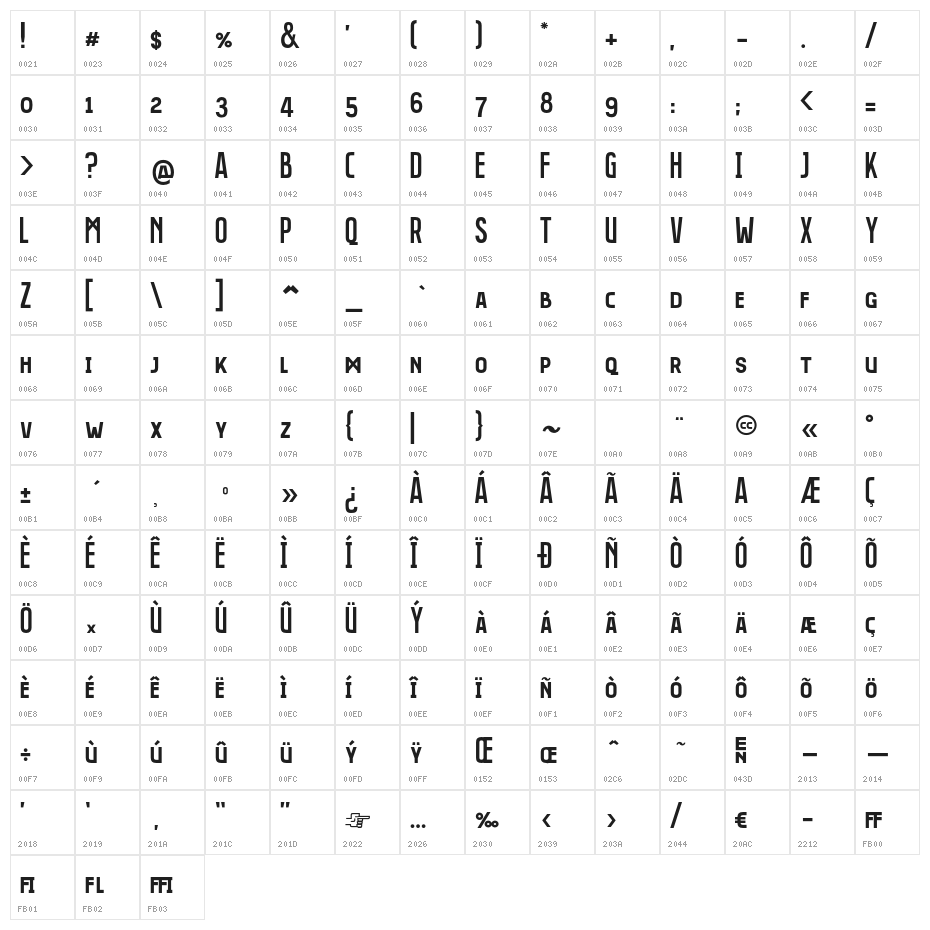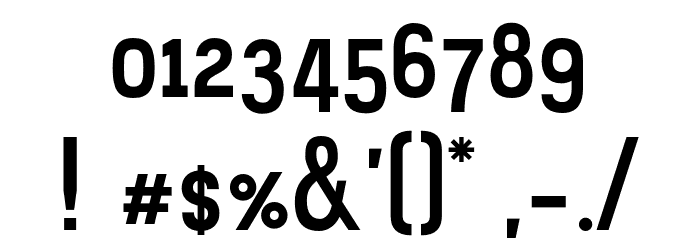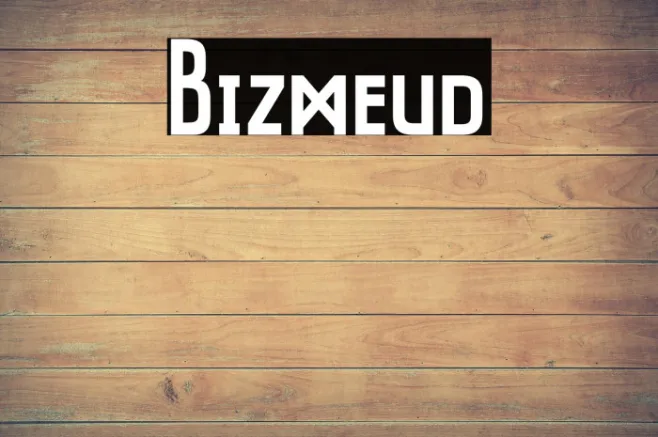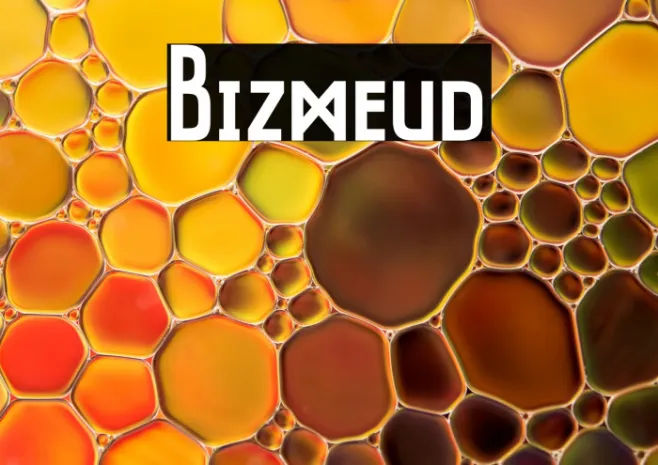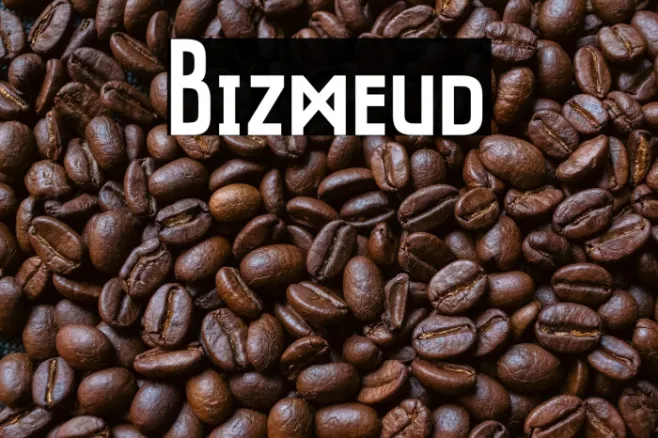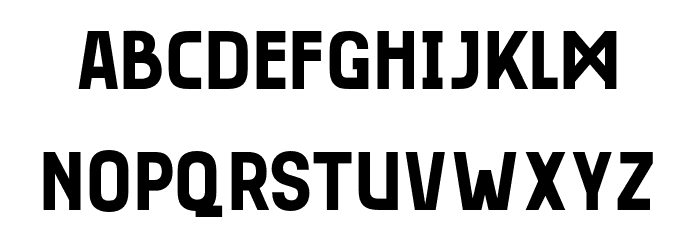
Bizmeud Font
Bizmeud Description
This font features a bold and modern design with a strong geometric influence. The uppercase letters are tall and narrow, giving a condensed appearance, while the lowercase letters maintain a consistent style that complements the uppercase. The numerals are clear and legible, matching the overall boldness of the font. Special characters are designed with the same attention to detail, ensuring they fit seamlessly with the rest of the typeface. The font's clean lines and uniform stroke widths make it highly readable and suitable for a variety of applications.
BIZMEUD UPPERCASE
BIZMEUD LOWERCASE
BIZMEUD OTHER CHARS